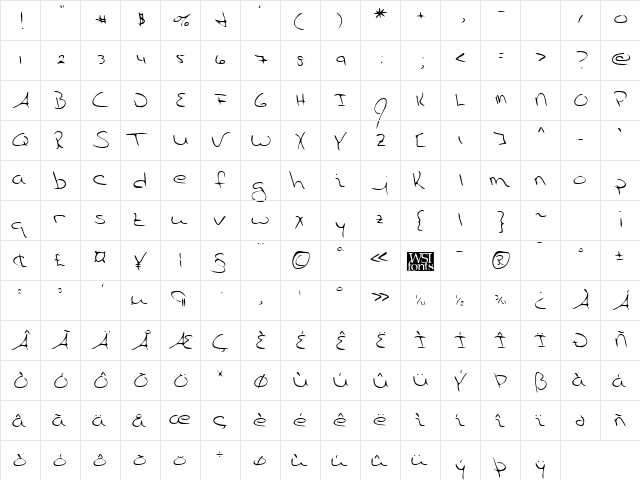
ChristinesHand Regular
Design Context for ChristinesHand Typeface
ChristinesHand brings a calligraphic fluidity to the page — its connecting strokes and expressive curves give it an unmistakably human quality.
Font Pairing: Combine ChristinesHand with a simple geometric sans for maximum contrast — the tension between flowing curves and clean structure is a classic typographic pairing.
Pro Tip: Use ChristinesHand for short runs of text — names, titles, or taglines. Extended body copy in script faces tires the eye quickly.